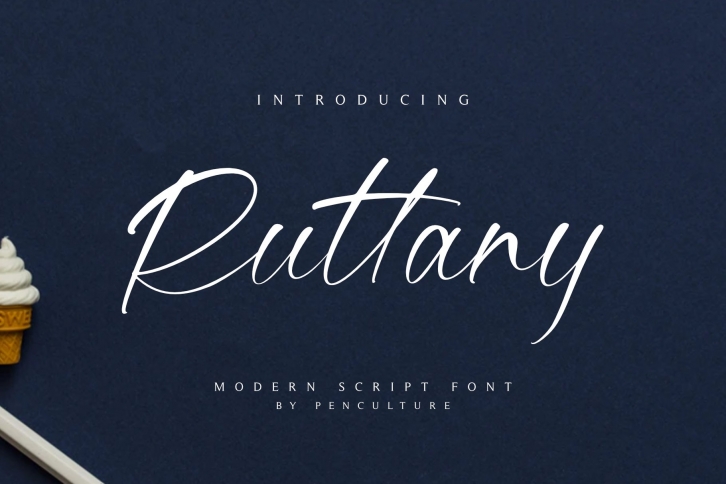
Ruttany- Modern Script FONT Download
Ruttany is modern script font. it's clean and elegant for logos, brand, wedding invitations, quotes, advertisements, and more.Ruttany is equipped with all caps, punctuation, number, beautiful and elegant ligature, this font is also multilingual language. so you can use according to your imagination.